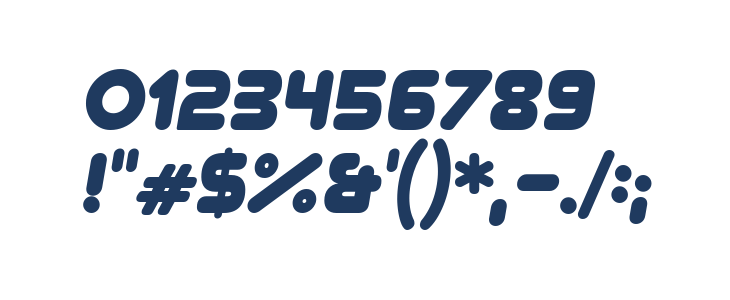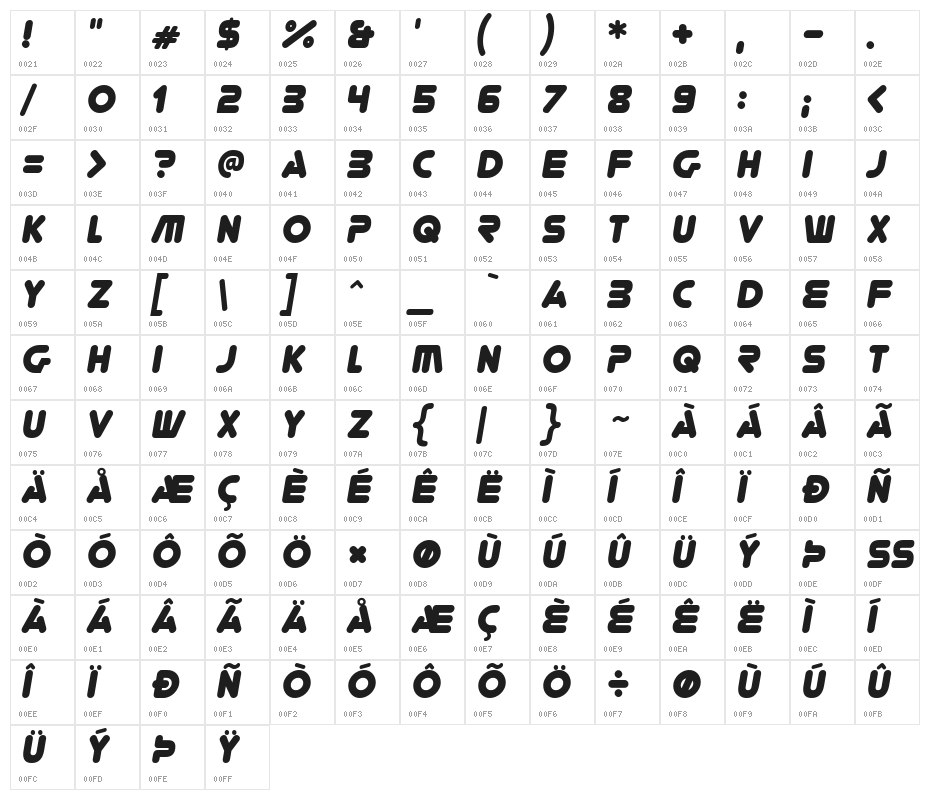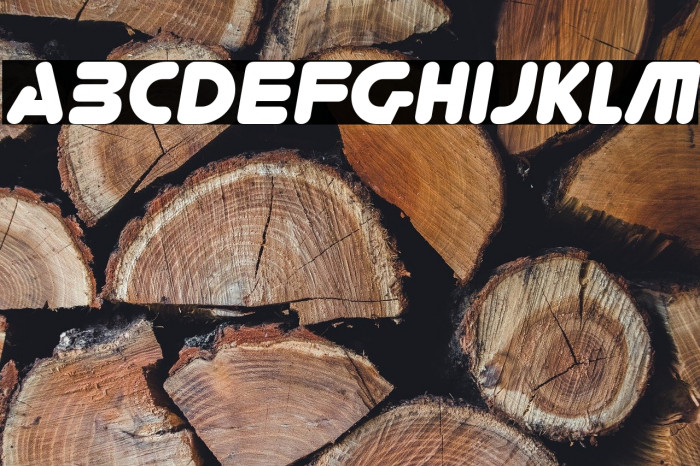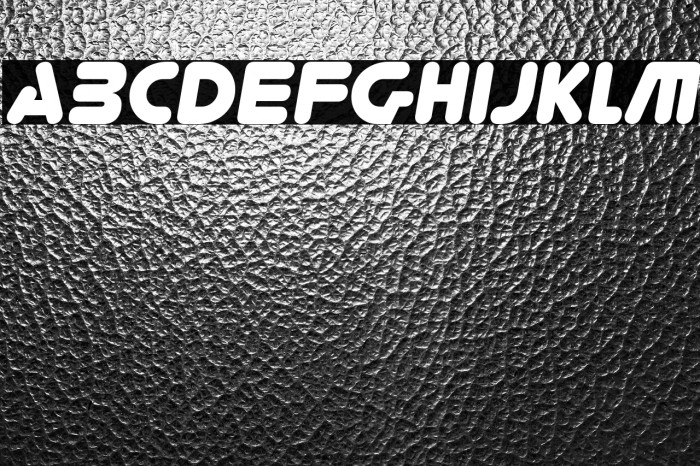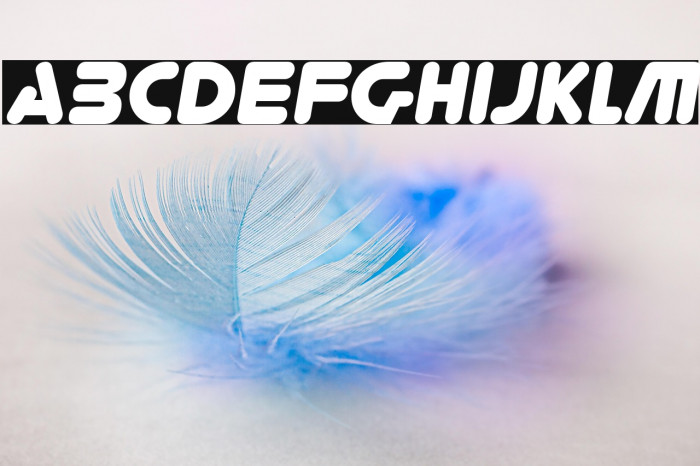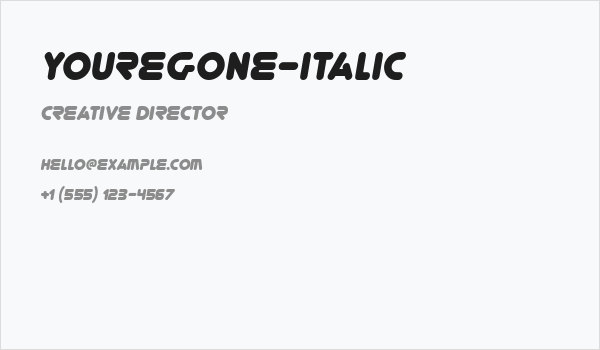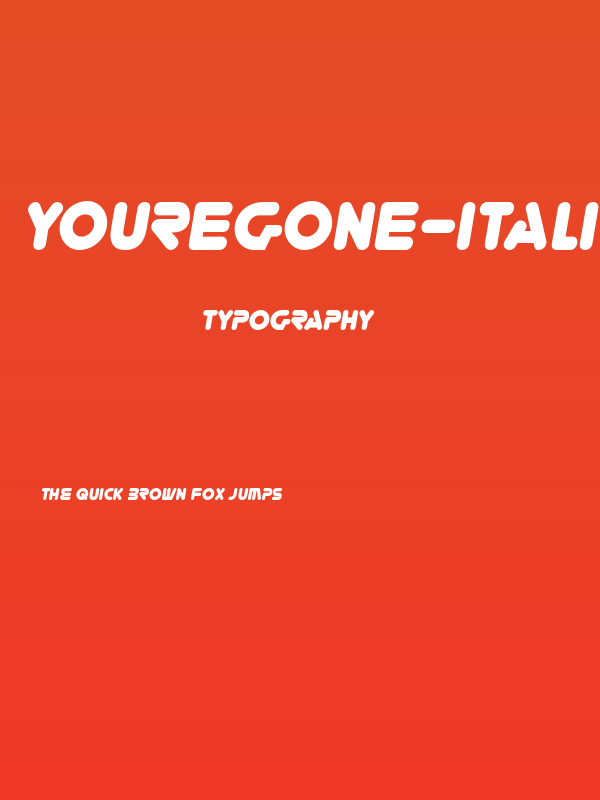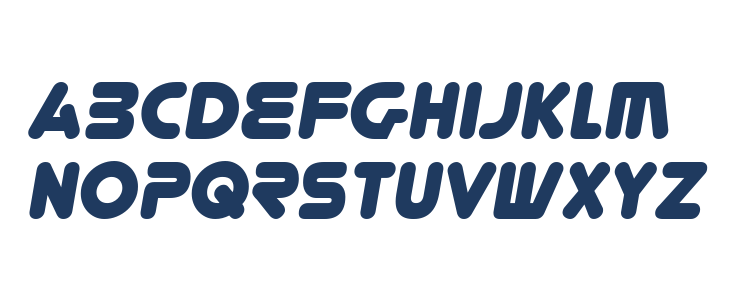
YoureGone-Italic Font
YoureGone-Italic Description
This font features a bold, rounded style with a modern and playful aesthetic. The characters are slightly italicized, giving a sense of motion and dynamism. The strokes are thick and consistent, providing a strong visual impact. The rounded edges soften the overall appearance, making it approachable and friendly. The spacing between characters is tight, which enhances the compact and cohesive look. This font is well-suited for projects that require a bold statement and a contemporary feel.
| Proposed Projects | Ideal for branding, headlines, posters, and any design needing a bold, modern touch. |